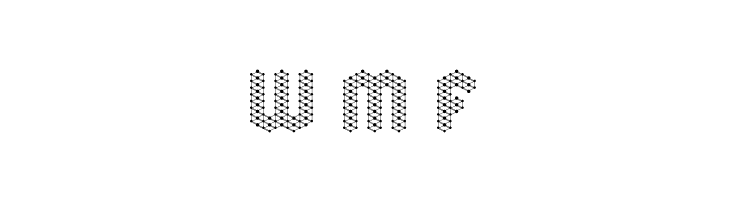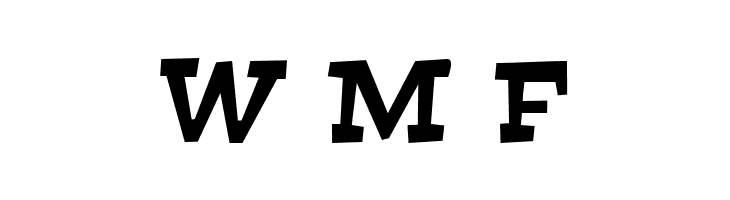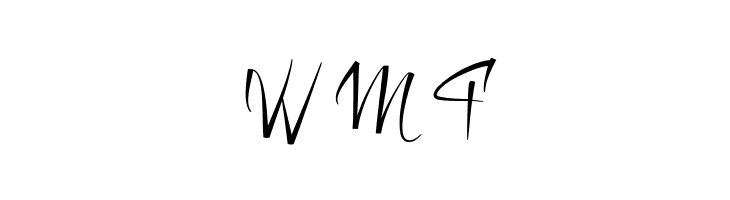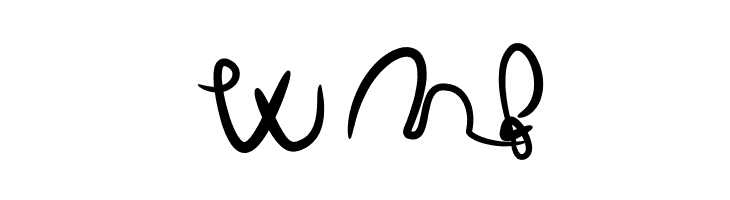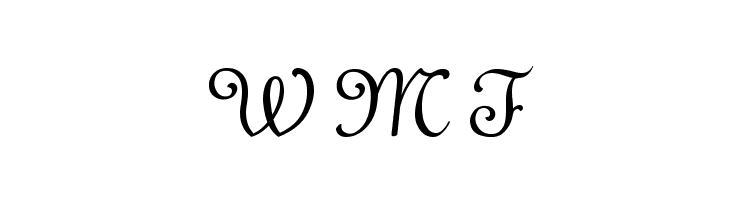
( Lauren Thompson - www.nymfont.com/ )
A playful, bold font with rounded, bubbly characters.
( Fonts by Maelle.K - Thomas Boucherie )
An elegant and flowing script font with ornate, cursive letterforms.
An elegant cursive font with decorative flourishes and a sophisticated style.
( Fonts by Alvaro Thomaz - alvarothomaz.com )
A bold, modern sans-serif font with a clean and professional appearance.
An elegant and sophisticated script font with decorative flourishes.
A geometric, modern font with thin, elongated letterforms and a minimalist style.
( Fonts by Maelle.K - Thomas Boucherie )
A playful dingbat font with matryoshka dolls and floral ornaments.
( Fonts by www.norfok.com - Norfok® Incredible Font Design - Thomas W. Otto )
A clean, modern font with clear, consistent characters and Japanese katakana elements.
A lively and elegant script font with fluid, connected letterforms.
( Fonts by Maelle.K - Thomas Boucherie )
Cartoonish, character-based decorative font with a playful, cute aesthetic.
A modern, geometric font with a bold, slanted design.
( Fonts by Harold Lohner - www.haroldsfonts.com )
An elegant italic serif font with smooth, flowing lines and moderate contrast.
( Fonts by Harold Lohner - www.haroldsfonts.com )
A modern, geometric sans-serif font with clean lines and excellent readability.
( Fonts by Harold Lohner - www.haroldsfonts.com )
A classic serif typeface with elegant, readable characters and balanced stroke contrast.
( Fonts by Octotype | Thomas Boucherie )
A cursive, handwritten font with a signature-like elegance.
A bold, expressive handwritten font with dynamic strokes and lively movement.
A lively and expressive script font with bold, sweeping curves and playful flourishes.
A bold, edgy font with sharp, angular lines and an aggressive style.
( Fonts by Thomas Ledin - tomledin.com )
A bold, edgy font with sharp angles and a heavy metal aesthetic.
A dynamic brush script font with expressive, fluid strokes and a hand-drawn appearance.
( Fonts by Maelle.K - Thomas Boucherie )
A playful, whimsical script font with fluid, interconnected strokes.
A playful, handwritten font with bold strokes and a dynamic, informal style.
A lively and flowing script font with elegant cursive letterforms.
( Thumaszz - Thomas Versteeg - OreadGames.com )
A pixelated, retro-style font with a digital, arcade-like appearance.
A bold, playful font with a modern yet vintage appeal.
( Fonts by Maelle.K - Thomas Boucherie )
An elegant, whimsical font with intricate swirls and loops, perfect for decorative use.
( Fonts by Maelle.K - Thomas Boucherie )
A playful decorative font with unique cartoon character illustrations.
( Fonts by Maelle.K - Thomas Boucherie )
A playful and elegant font with flowing, cursive-like strokes and elongated serifs.